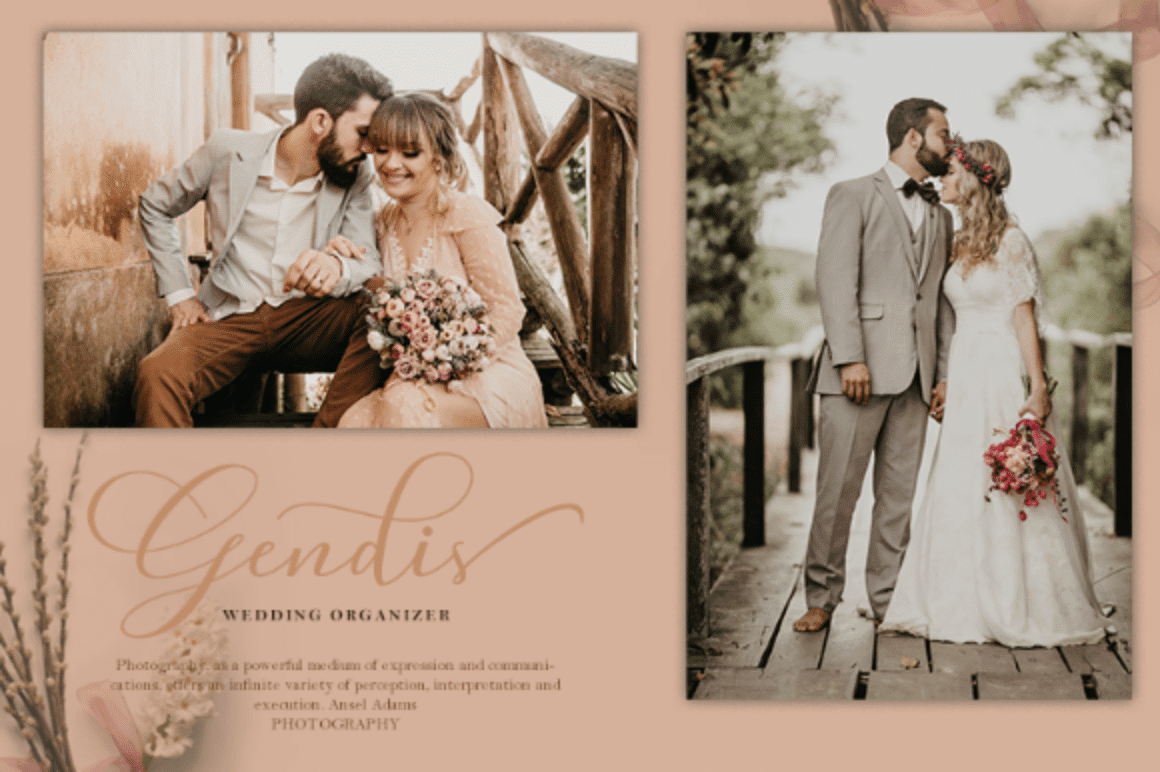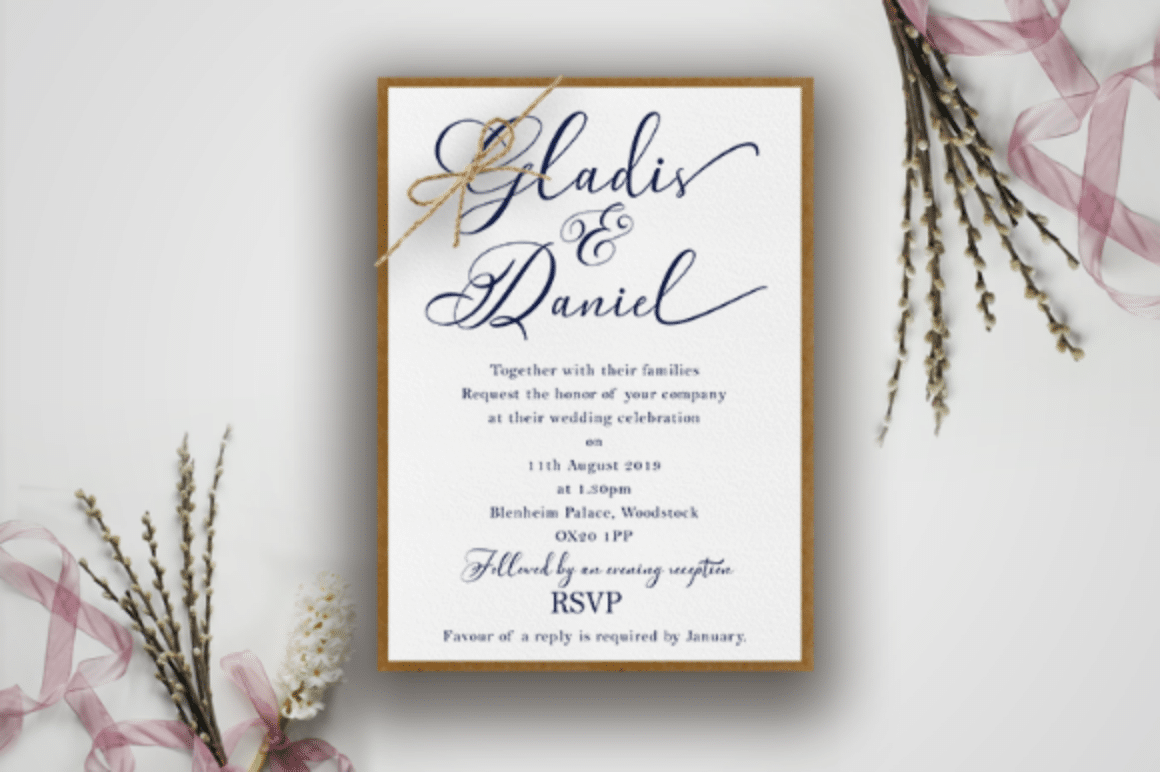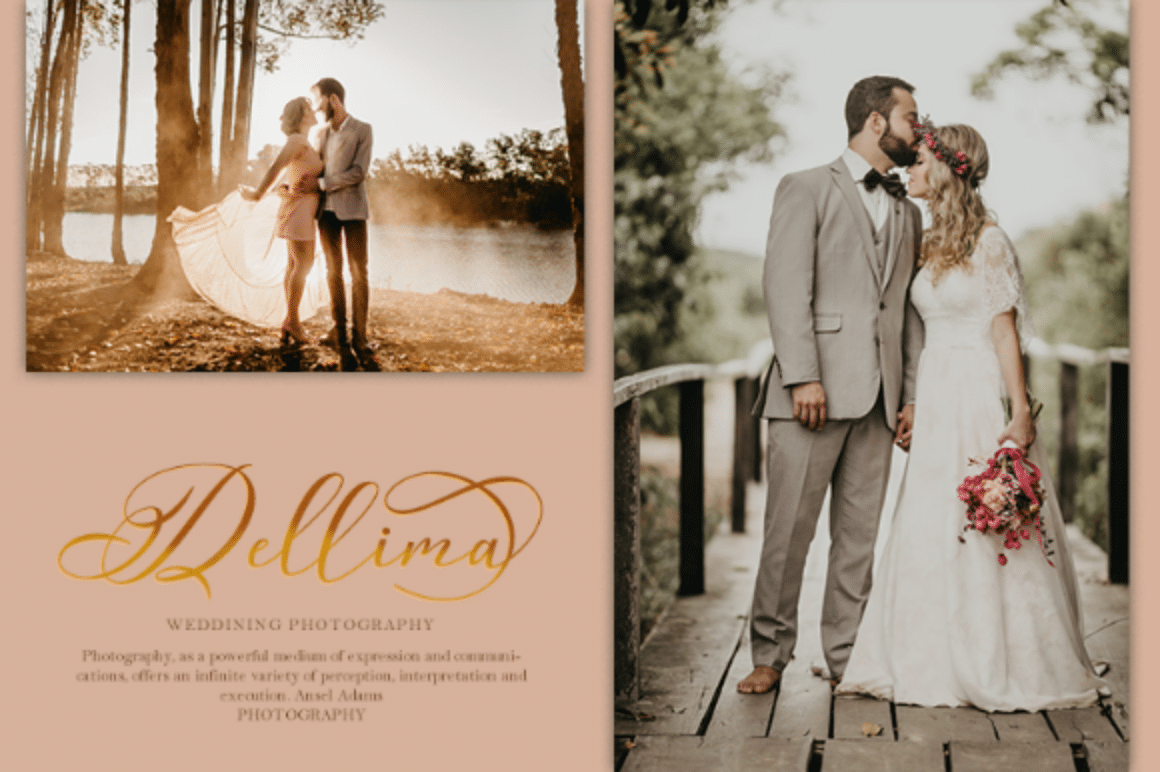
Dellima Calligraphy Font
Dellima Calligraphy Font. This beautiful script is for those who need some elegance and style for their designs and is perfect for wedding invitations, date cards, and feminine branding.